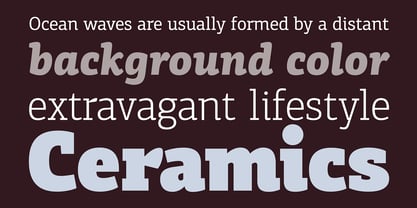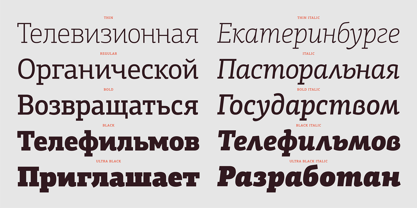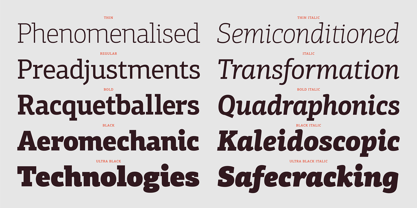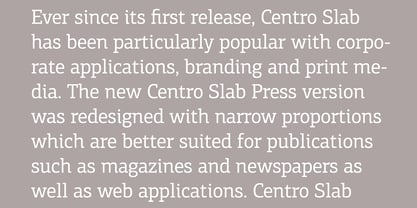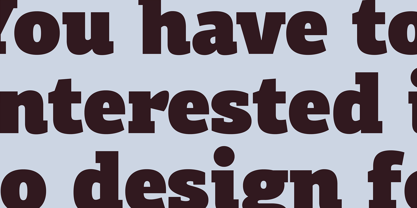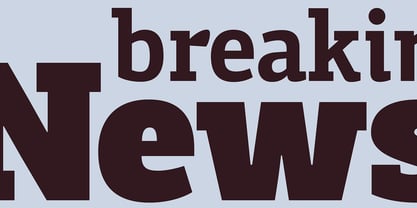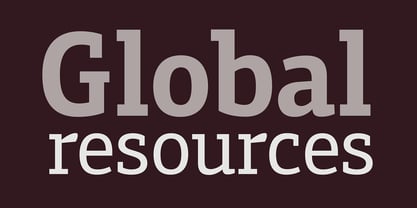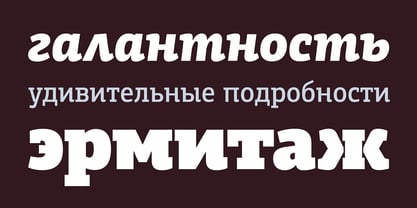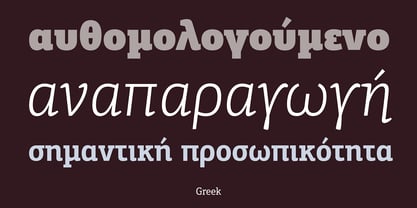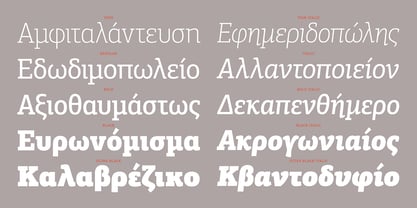
PF Centro Slab Press™
by Parachute
The PF Centro Slab Press Font Family was designed by Panos Vassiliou and published by Parachute. PF Centro Slab Press contains 16 styles and family package options. More about this family
Centro Slab Press: Specimen Manual PDF Ever since its first release, Centro Slab has been particularly popular with corporate applications, branding and print media. The new Centro Slab Press version was redesigned with narrower proportions which are better suited for publications such as magazines and newspapers as well as web applications. Centro Slab Press is a very clean and legible typeface even at heavier weights, a characteristic which is not often seen among slab typefaces. This is part due to the fact that Centro Slab Press is not overpowered by clumsy serifs. Instead it incorporates semi-slabs which provide comfortable reading without compromising its modern profile. The italics are narrower than the romans and incorporate beautiful cursive characteristics. Each style consists of 659 glyphs with several opentype features and an extended set of characters which support more that 100 languages such as those based on the Latin, Greek and Cyrillic alphabet. The family is composed of 16 styles from ExtraThin to UltraBlack along with their italics. All weights were meticulously hinted for excellent display performance on the web.
Designers: Panos Vassiliou
Foundry: Parachute